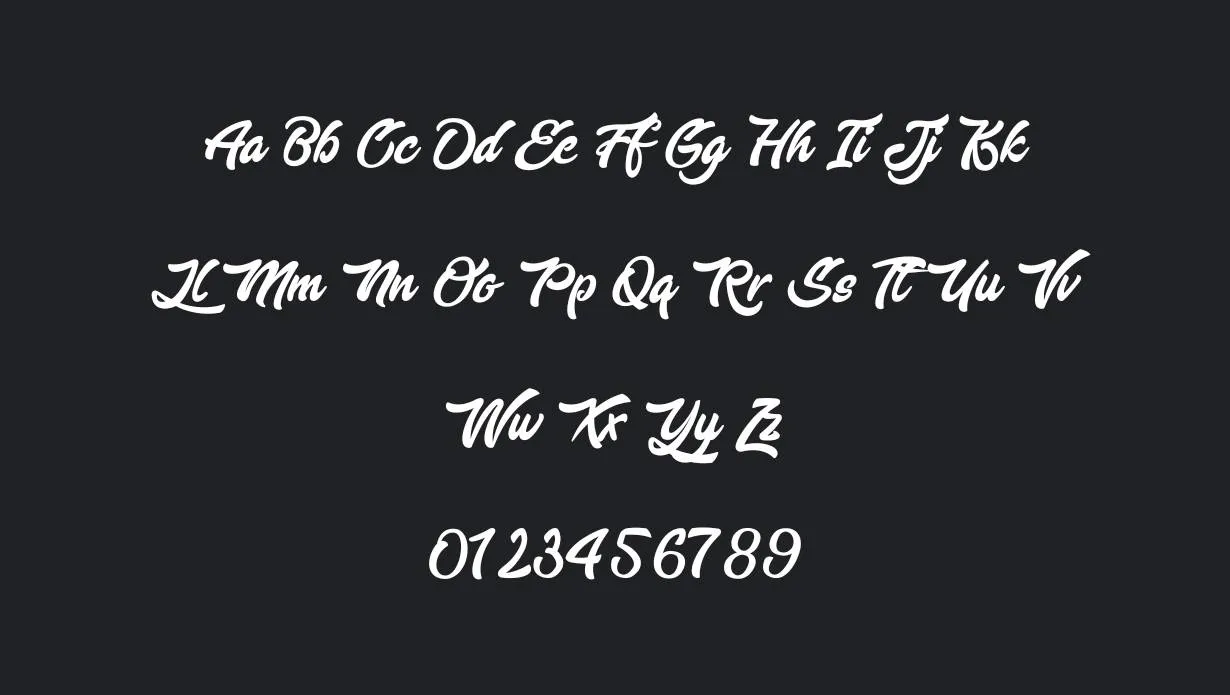
Enlighten Your Destiny Font is a decorative and imaginative typeface known for its unique and artistic design. It’s frequently used in creative advertising, branding, and headline text where designers want to create a memorable visual impact.
The font’s intricate and unconventional letterforms make it stand out and draw attention.
| Name | Enlighten Your Destiny Font |
| Designer | Octotype |